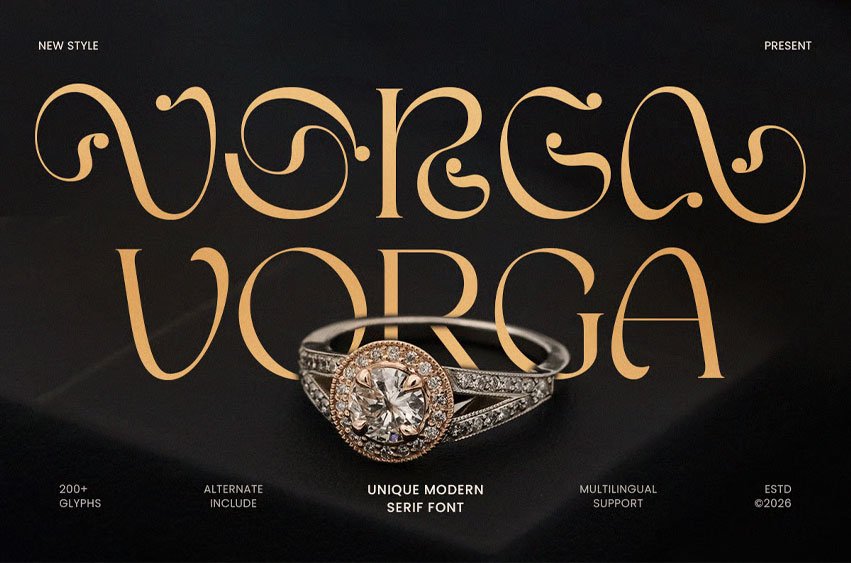
Vorga Font Display Classy Glamour Font Vorga is a classy glamour display font designed to express elegance, luxury, and high-end visual appeal. With stylish letterforms, refined curves, and a glamorous character, Vorga is perfect for fashion branding, luxury logos, headlines, editorials, beauty products, invitations, and premium visual designs.
Crafted to capture attention with sophistication, Vorga combines modern display strength with classy glamour aesthetics. Its bold yet elegant style makes it ideal for fashion labels, jewelry brands, beauty campaigns, lifestyle products, magazines, and designers seeking a font that feels luxurious, confident, and visually striking.
Vorga – Display Classy Glamour Font Features:
- Classy glamour display style with elegant character
- Ideal for luxury branding, logos, and headlines
- Uppercase, lowercase, numerals, and punctuation included
- Stylish letterforms with premium visual impact
- Perfect for elegant, glamorous, and high-end designs
Elevate your visuals with Vorga – the display font crafted for classy glamour and luxury expression.